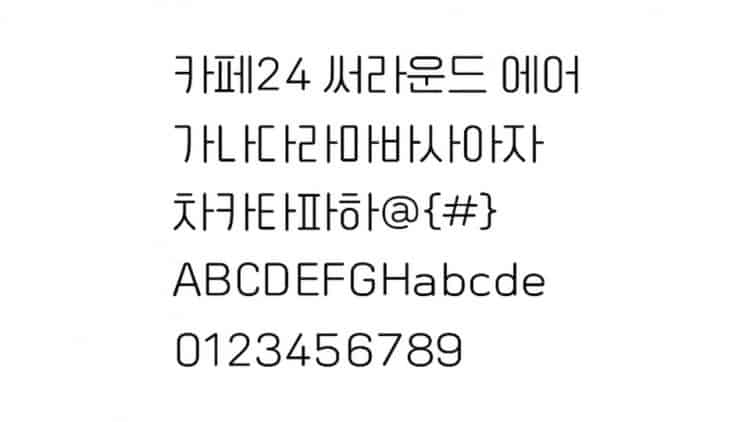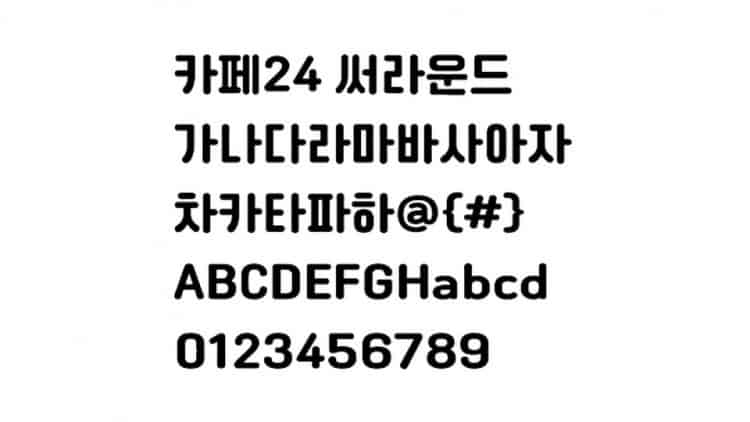
Ssurround Sans Serif Font is elegant, handmade sans serif typeface. It has a touch of luxury, but also a certain amount of warmth that reminds us of home. It’s designed and shared by Cafe24. This typeface is a rounded font family with a simple geometric structure. Its clean yet friendly style lends itself well to brand building.
Ssurround is a neutral typeface that’s suited for web, print, packaging and signage applications.